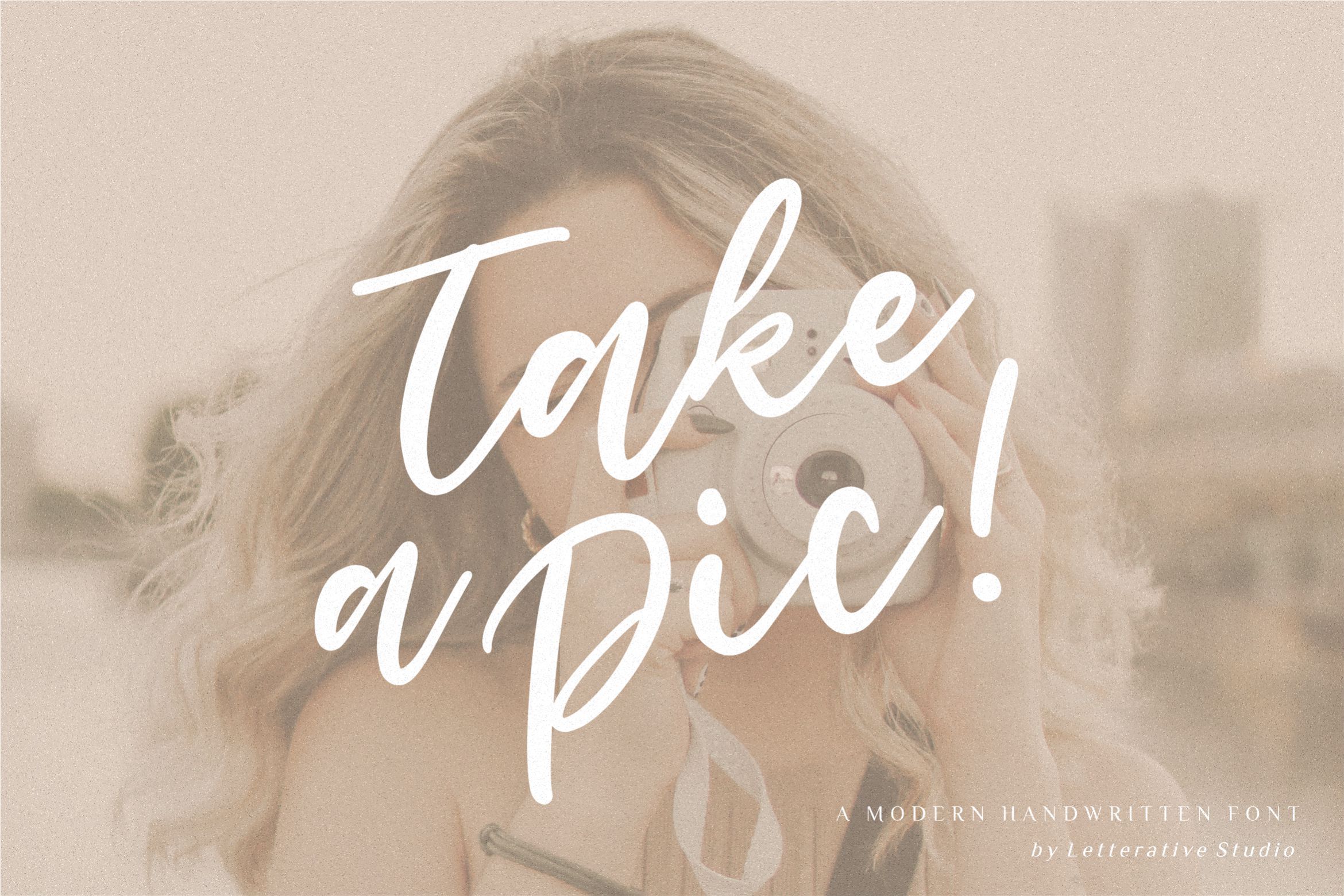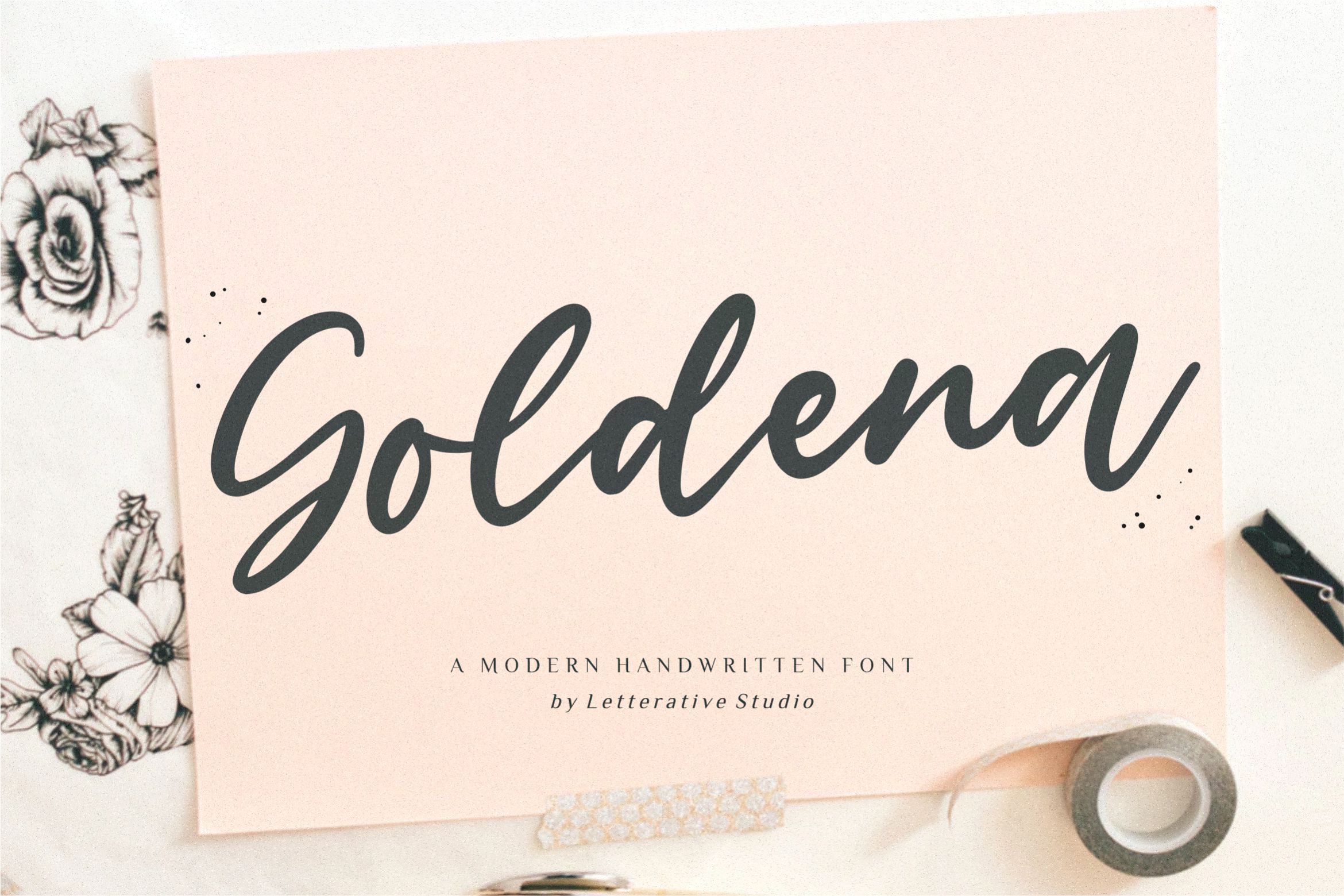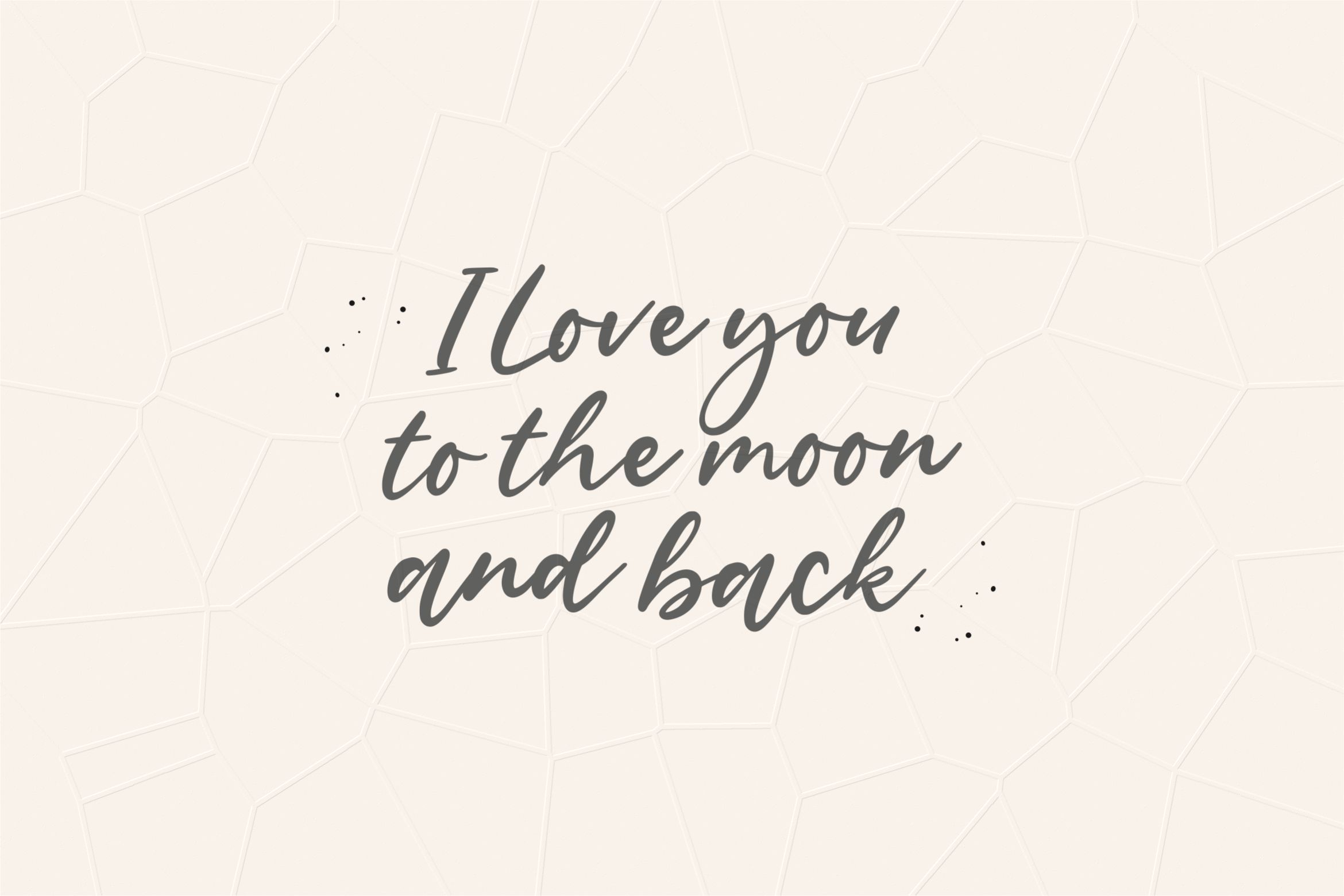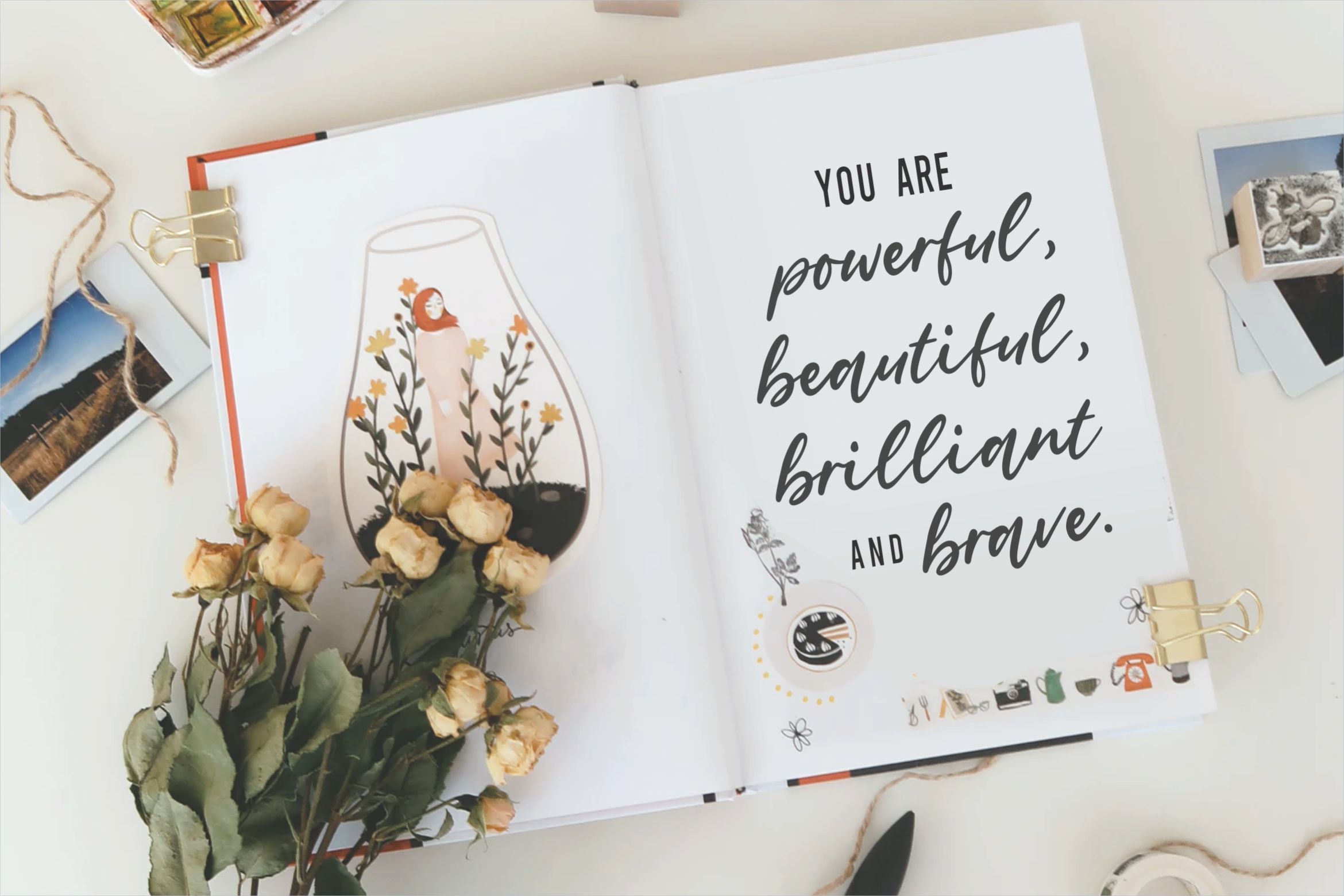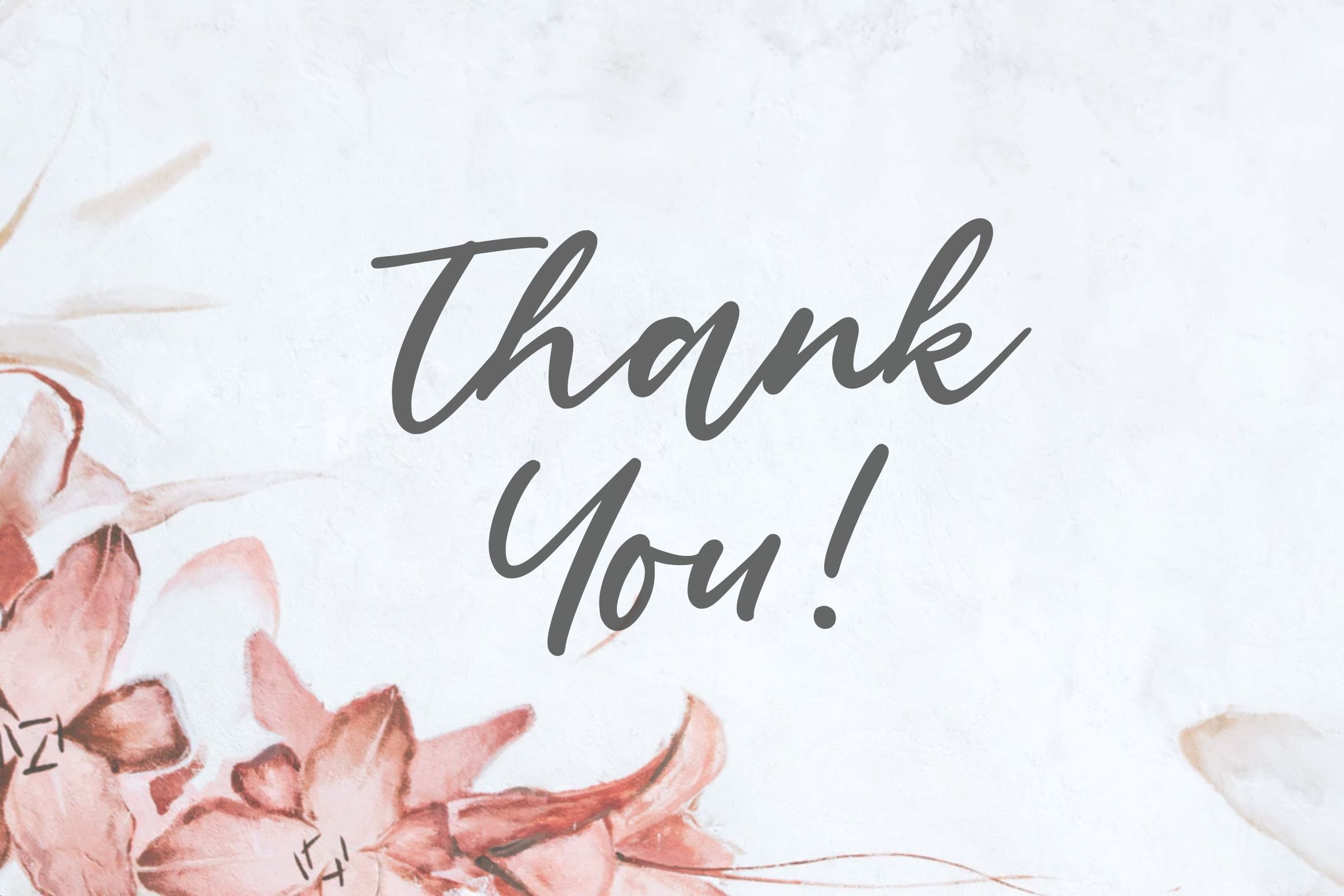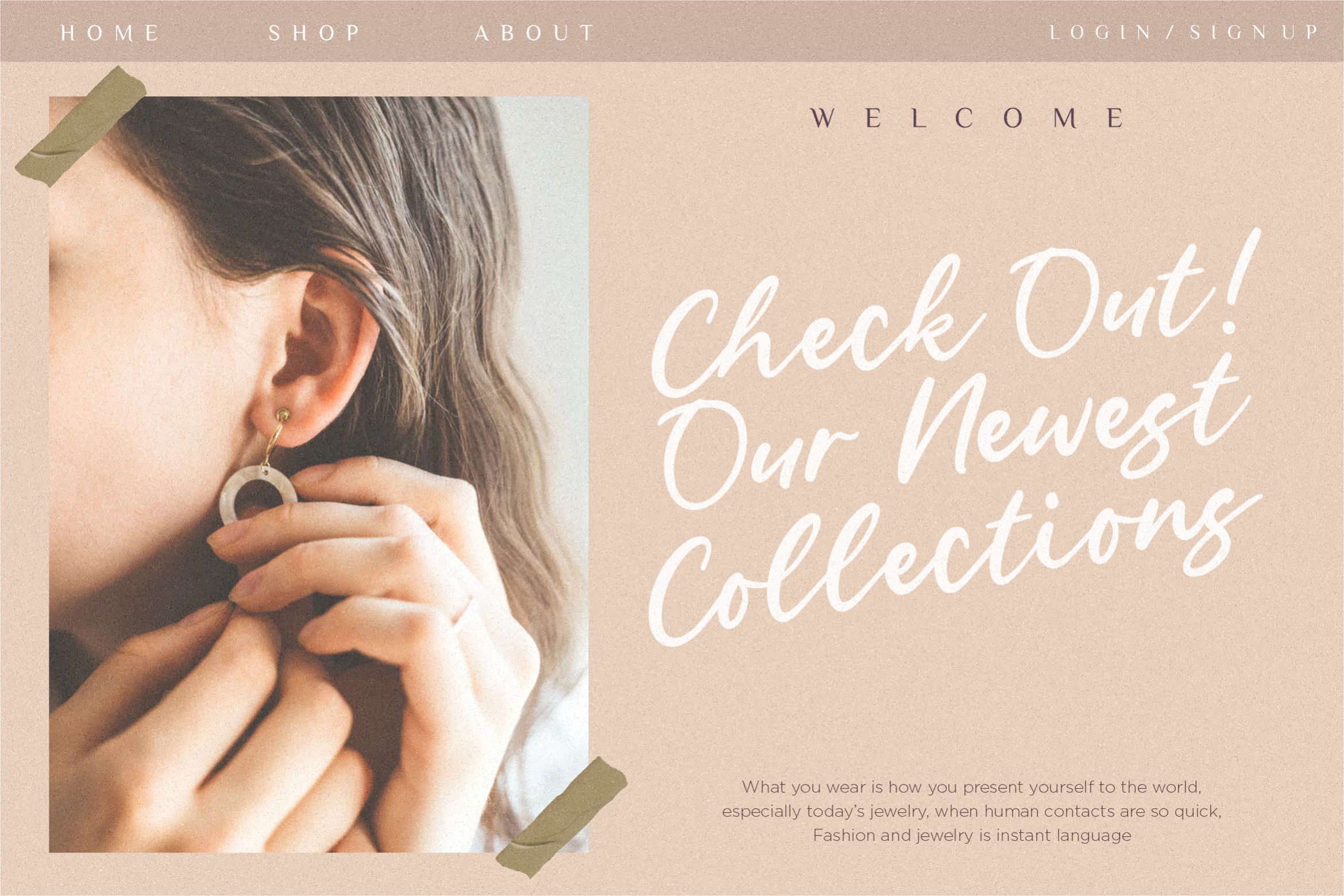
Goldena Modern Handwritten Font
About Goldena Modern Handwritten Font
Introducing by Letterative Studio : Goldena Font Goldena is a Modern Handwritten Font Goldena is a round lettered and beautiful handwritten font, described by a sweet touch. Fall in love with its distinct and timeless style and use it to create spectacular designs! This font includes : TTF and OTF Goldena also multilingual support Enjoy the font! Feel free to comment or feedback Send me PM or email Thank you!